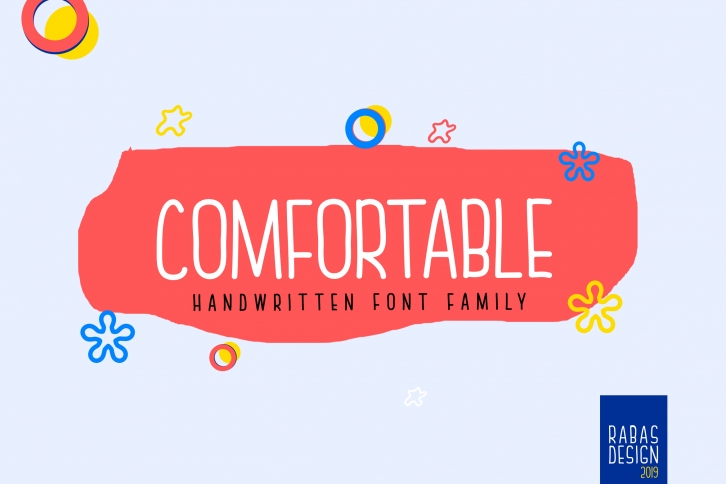
Comfortable is a great font that was designed by Rabas Design. Imagine the amount of combinations you can create using this font! The archive is 20.17 MB and it was released on October 22, 2019. Comfortable looks beautiful on wedding invitations, greeting cards, logos, posters, labels, t-shirt designs, logos, business cards and is perfect for use in ink or watercolor works, fashion, magazines, packaging and food menus, children's books and more!